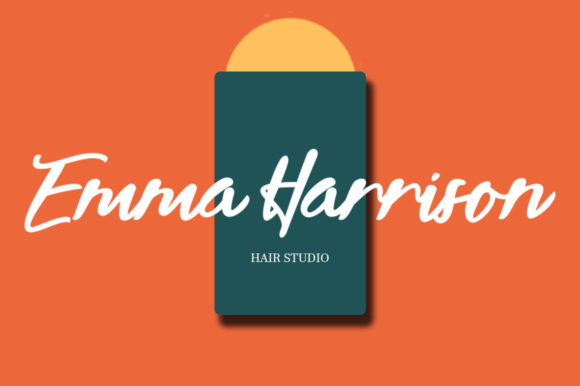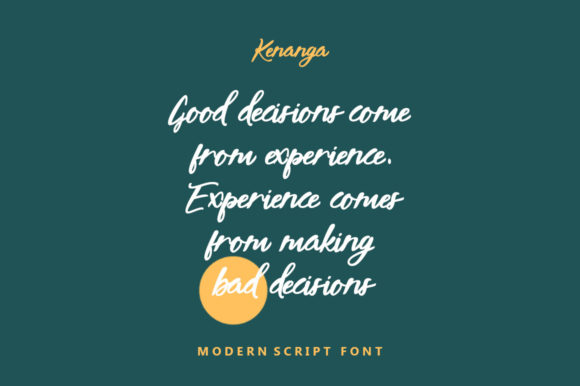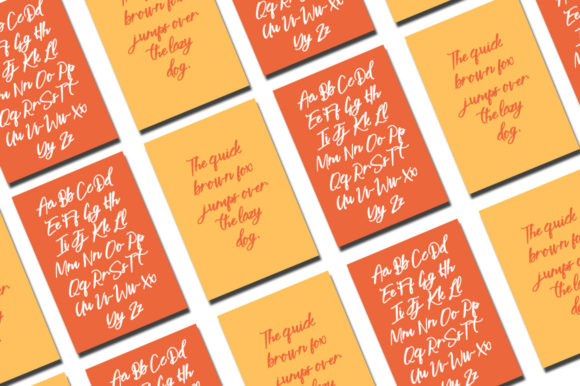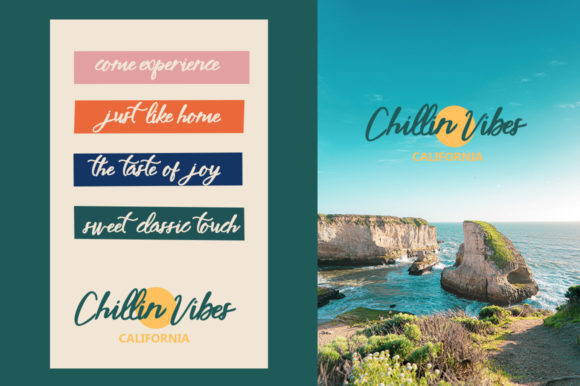
Introduction to Kenanga Font
Kenanga is an elegant and casual modern script font with a friendly feel.
It features gorgeous swashes and ligatures that make this script incredibly versatile Whether youโ€™re looking for fonts for social media or calligraphy scripts for DIY projects, Kenanga will turn any creative idea into a true piece of art.
Key Features of Kenanga Font
Why Choose Kenanga Font?
Kenanga Font offers exceptional quality and versatility, making it a valuable addition to your design toolkit. Whether you’re creating for personal projects or commercial use, Kenanga Font delivers professional results.